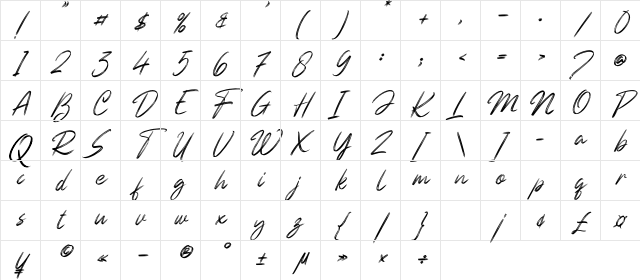
Complete Genesiss Slant_DEMO Italic glyph index. Displaying only characters natively supported by Genesiss Slant_DEMO Italic font.
Genesiss Slant_DEMO is a composed and adaptable typeface that performs quietly and consistently across a wide range of design contexts. The slanted form adds forward momentum and visual energy.